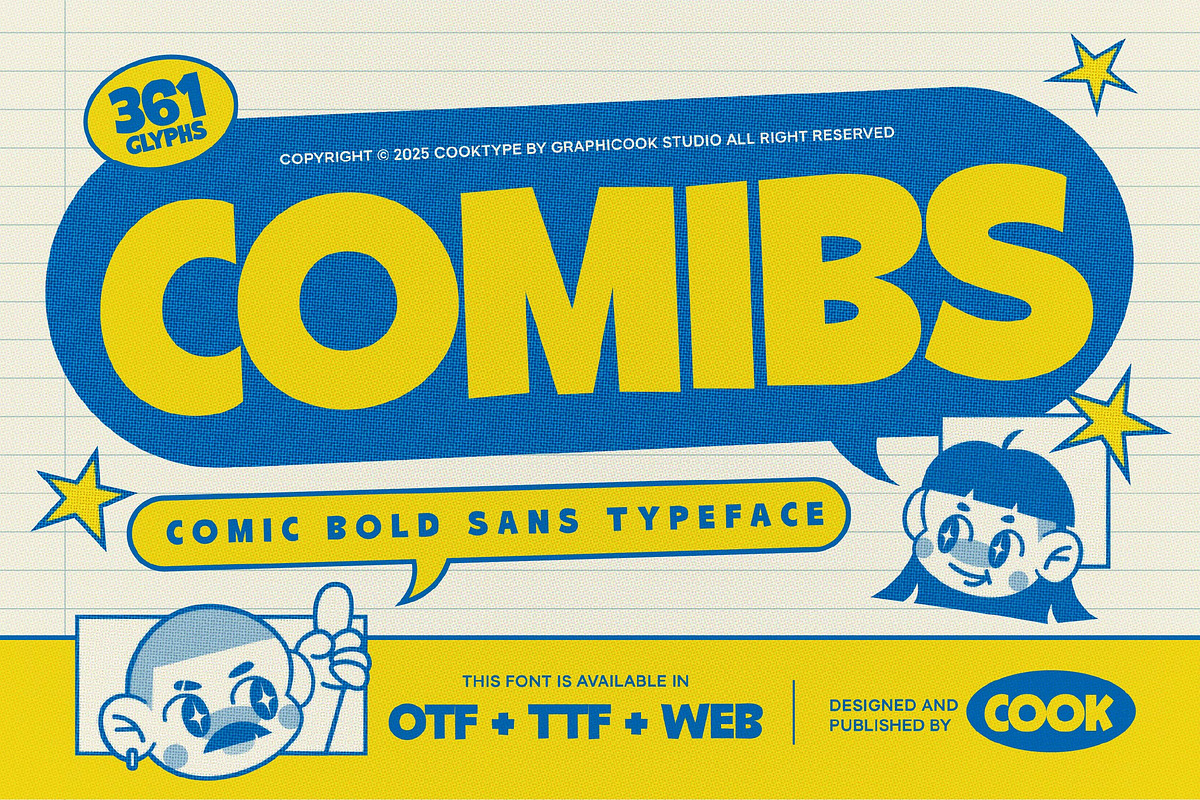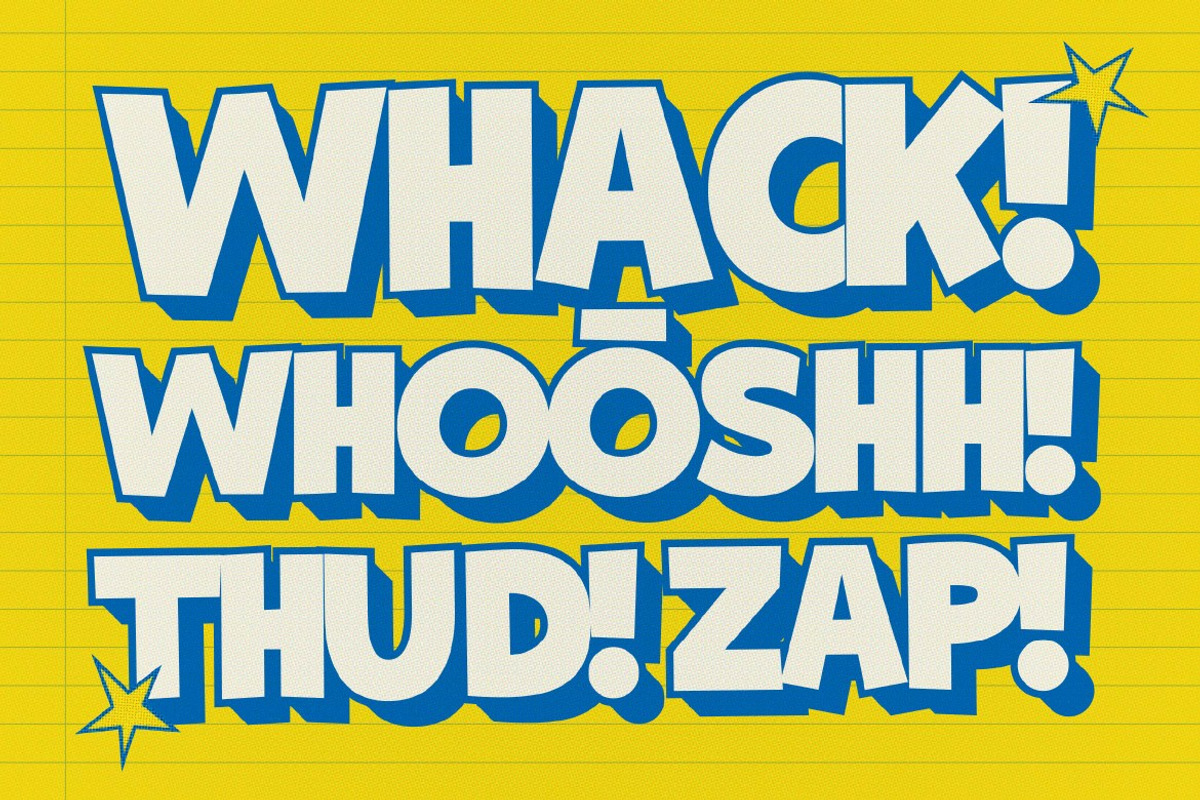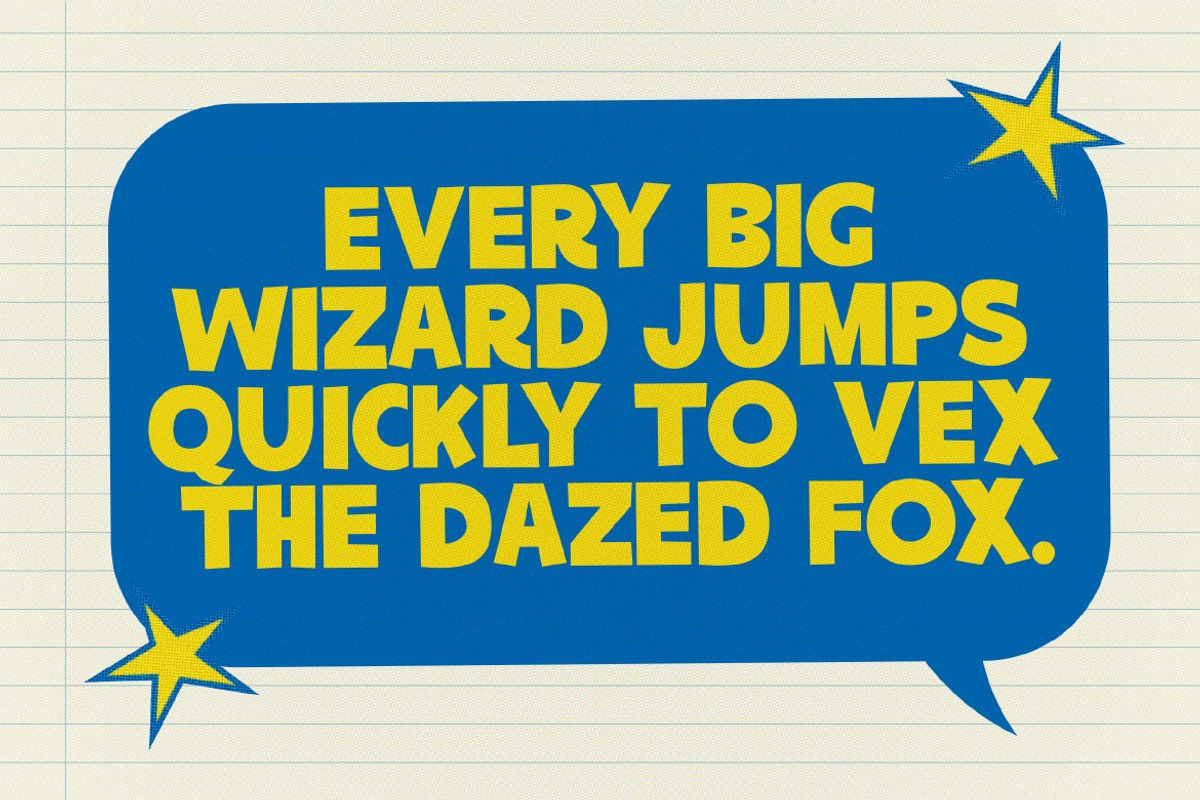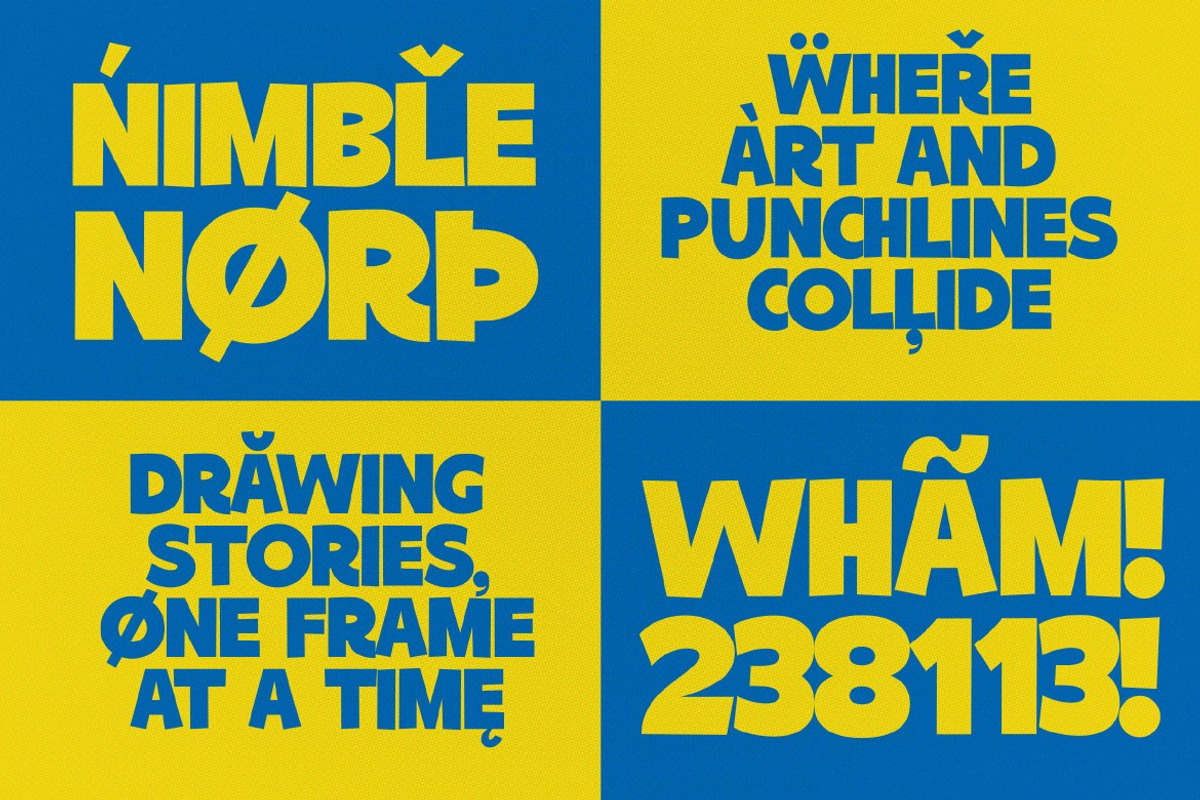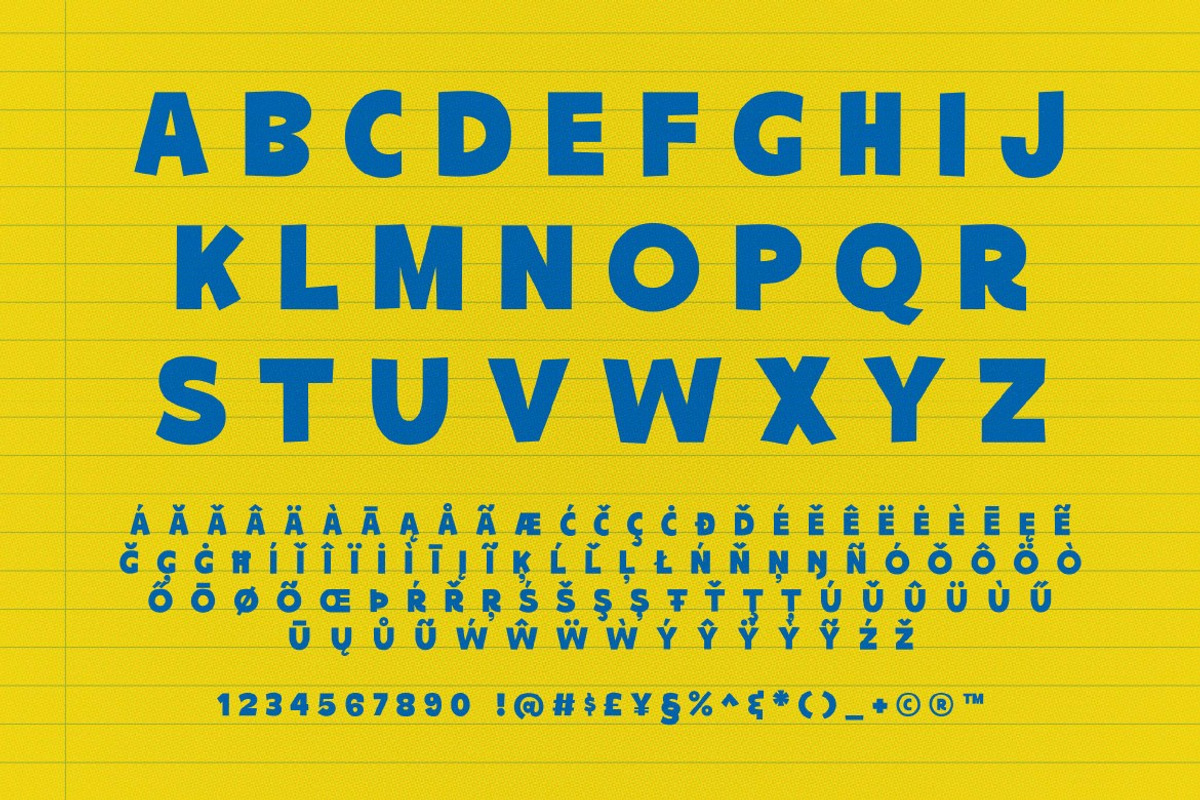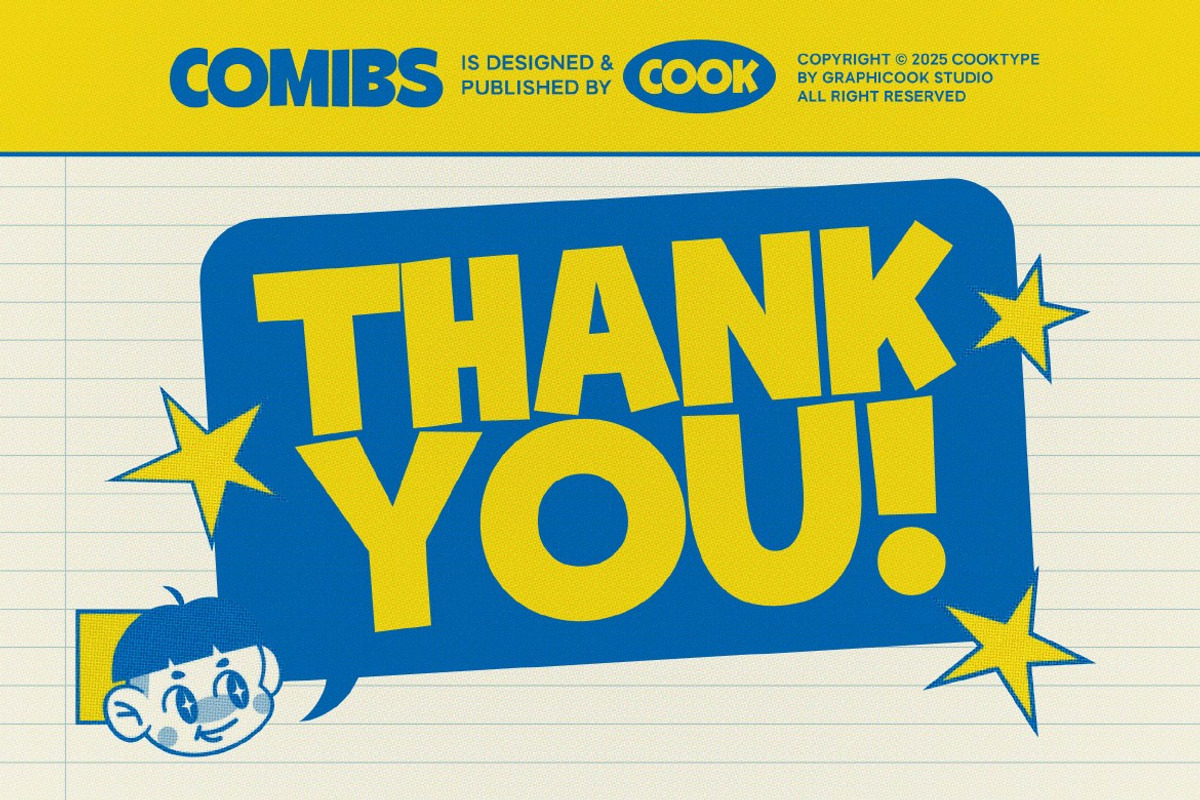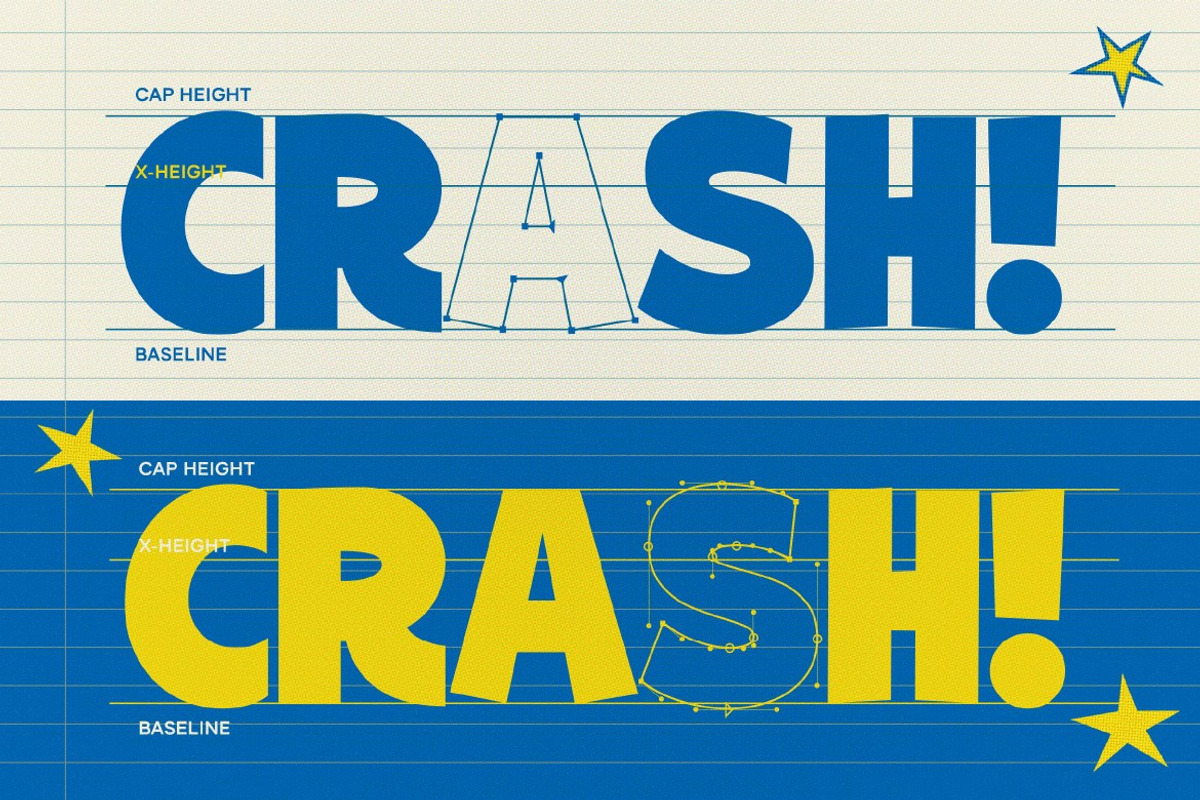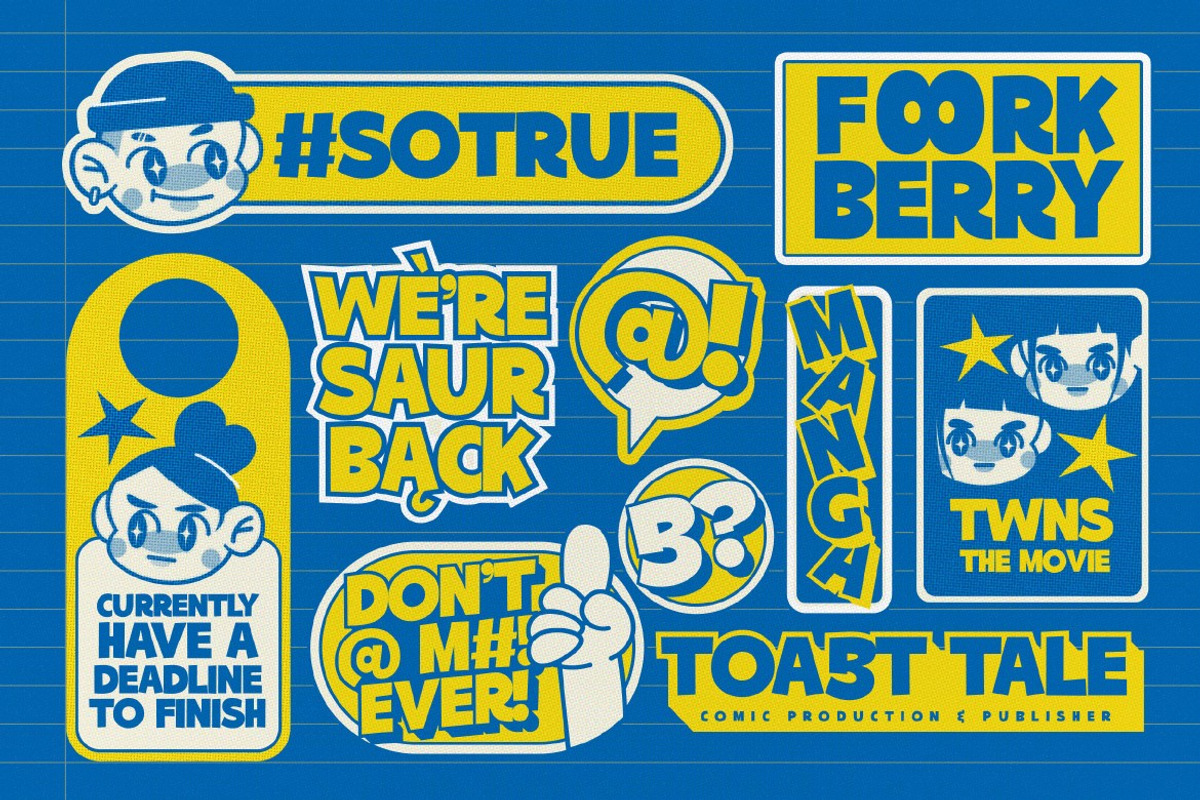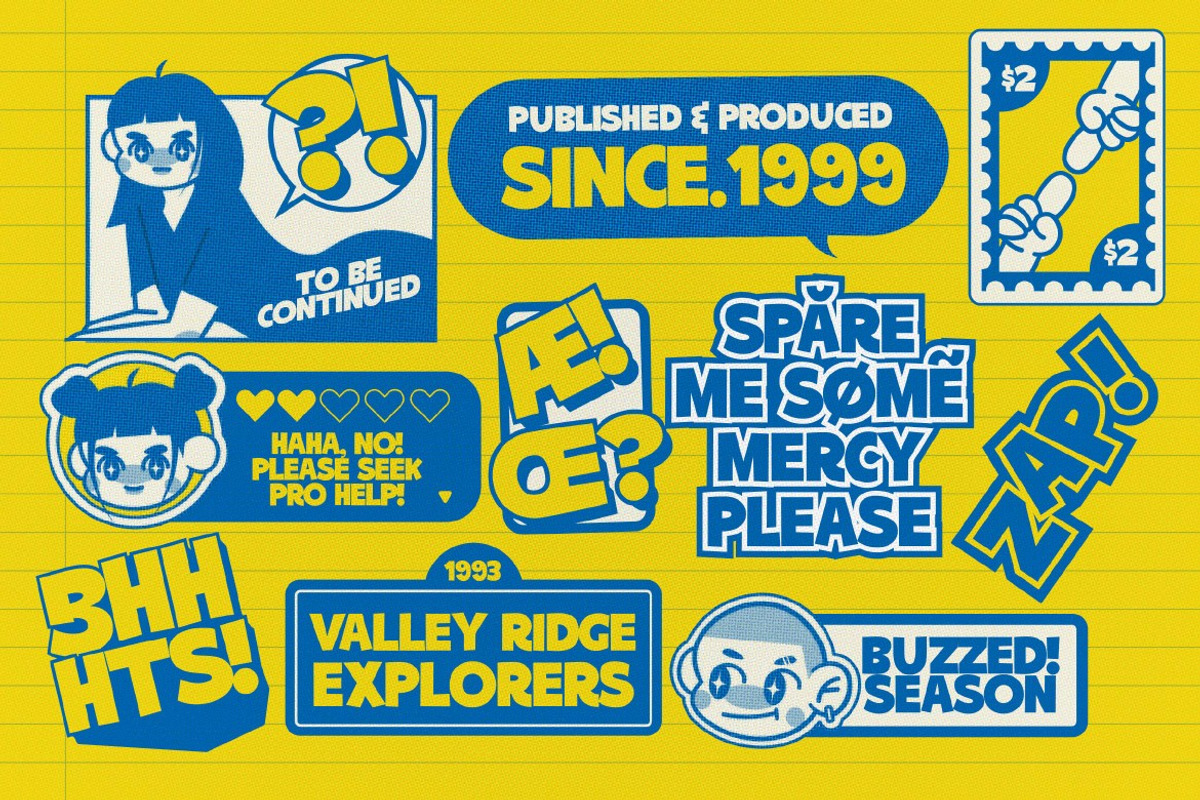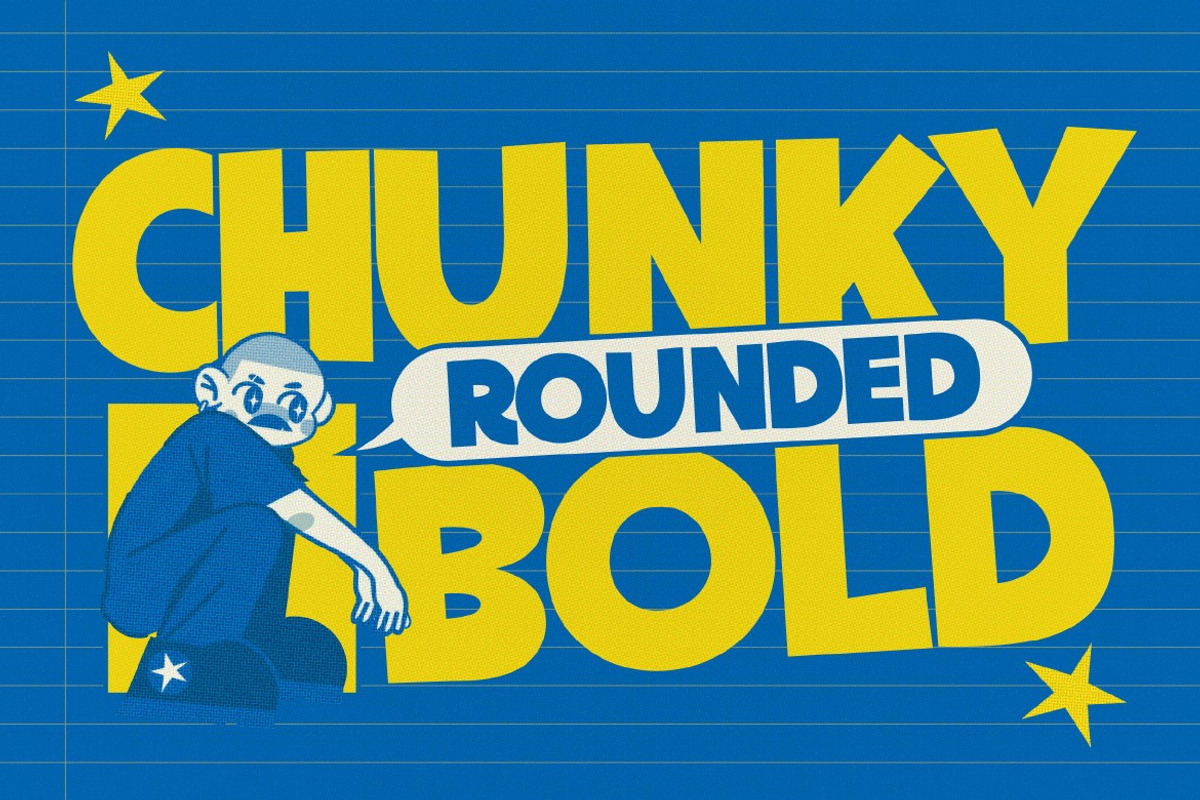
Comibs
Comibs is a bold comic-style font with expressive, eye-catching characters that combine playfulness and impact. Perfect for headlines, branding, and designs that aim to convey a cheerful tone with strong visual contrast.
It is perfect for headlines, logotypes, magazines, packaging, quotes, movies, games, cover albums, book covers, and flyers, it's a perfect solution for creating eye-catching designs that stand out in any context.
by Graphicook